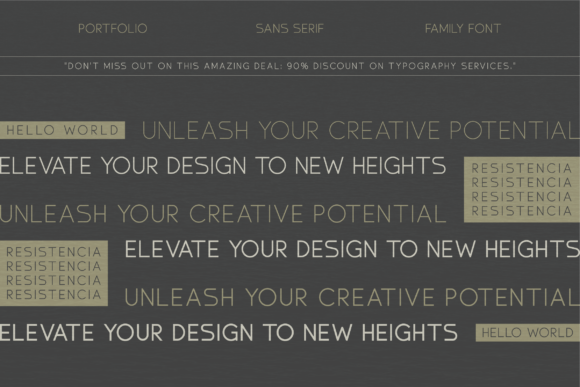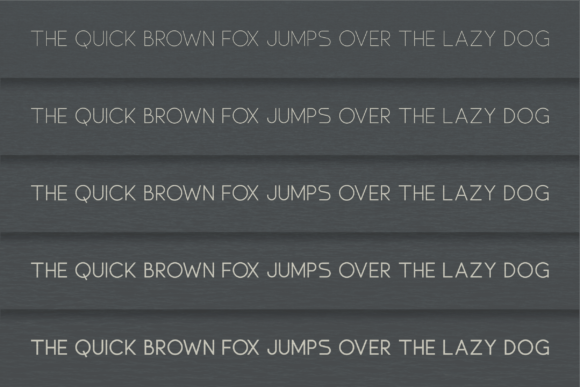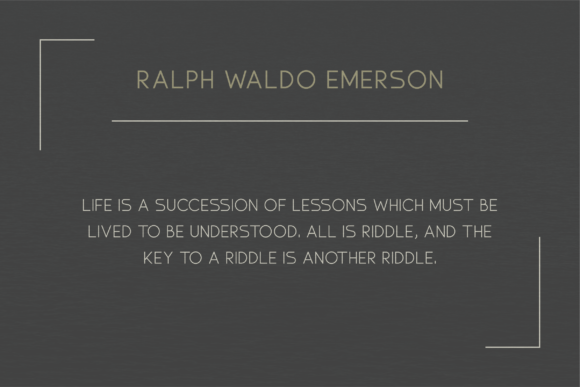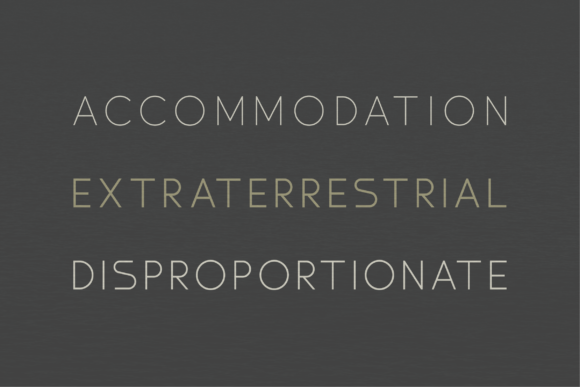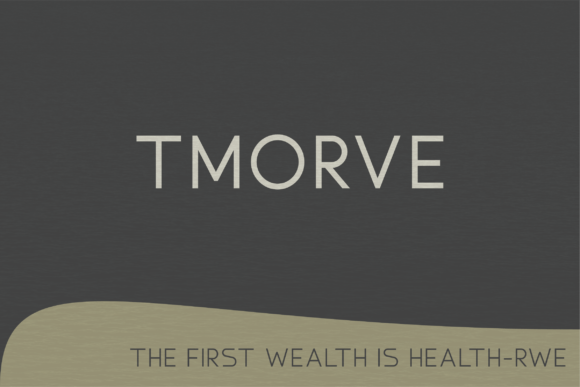
Introduction to Resistencia Font
Introducing the Resistencia Font, the epitome of elegant minimalism.
This exclusive font family boasts of five unique weights, skillfully bridging the gap between contemporary style and opulent luxury Every detail in this sans serif selection is meticulously refined, ensuring it elevates your projects, be it a modern magazine, distinctive logo, or dynamic film poster.
Key Features of Resistencia Font
Why Choose Resistencia Font?
Resistencia Font offers exceptional quality and versatility, making it a valuable addition to your design toolkit. Whether you’re creating for personal projects or commercial use, Resistencia Font delivers professional results.